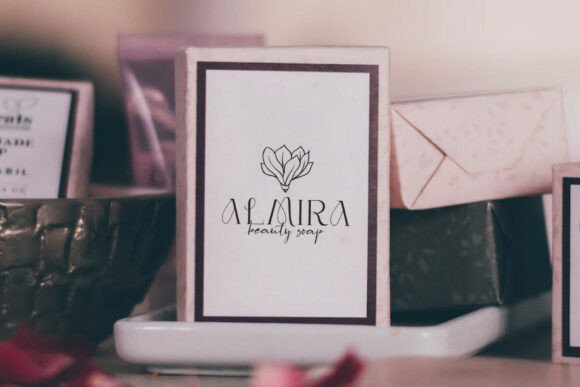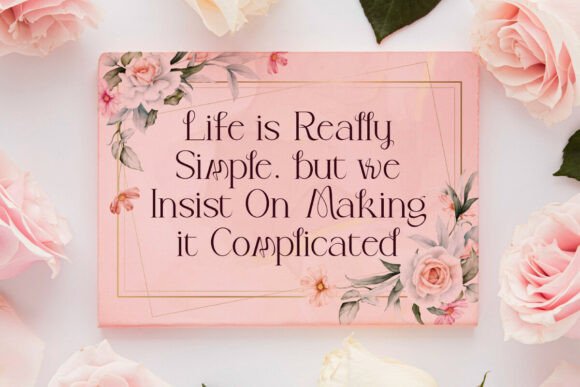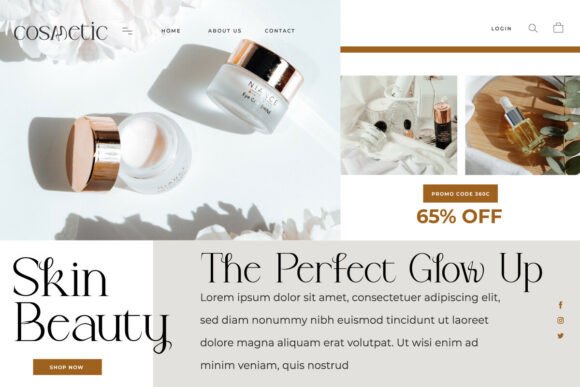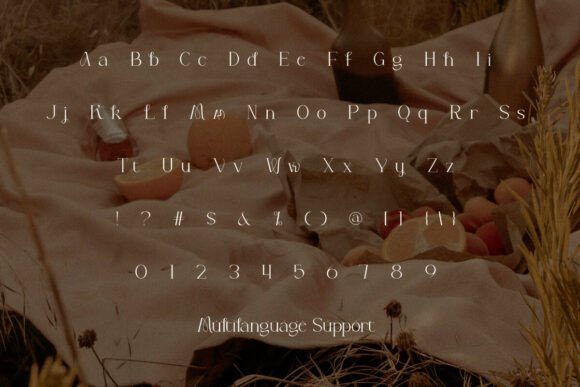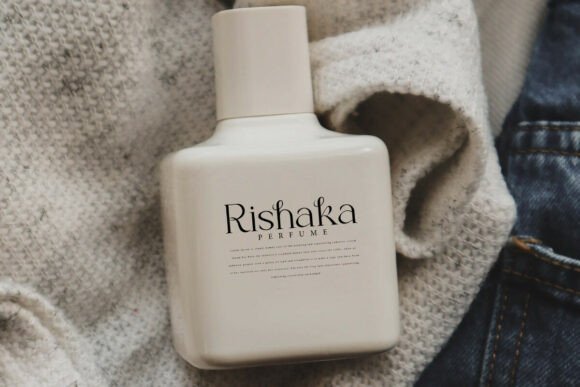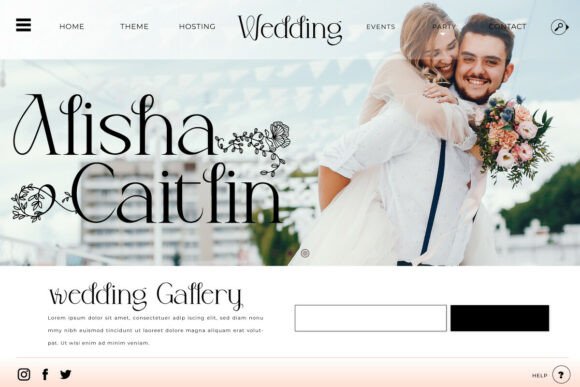
Unleash Your Creativity with Almandite Font
Have you ever stared at a blank page, trying to conjure up the perfect design to showcase your brand or product? The pressure to create something visually stunning can be overwhelming, but what if you had the perfect tool to help you stand out from the crowd? Enter the Almandite Font, a sleek and sophisticated sans-serif display font that’s about to revolutionize your creative workflow.
Designed by RaisProject, Almandite Font is a highly versatile typeface that’s perfect for a wide range of projects, from fashion and beauty to publishing and beyond. Its unique swirl element adds an extra layer of elegance and sophistication, making it an instant favorite among designers. With its effortless access to glyphs, swashes, and alternate characters, you’ll be able to create stunning designs with ease, no matter your skill level.
Almandite Font Key Features
- Unique Characteristics: The font features a unique blend of modern and vintage elements, with intricate details and ornaments, making it suitable for luxury and high-end designs.
Almandite Font Review
Overall, I’m really impressed with the Almandite font. ✨ The first thing that caught my eye was its unique blend of elegance and sophistication. The font’s subtle curves and rounded edges give it a soft, vintage feel that’s perfect for a variety of design projects.
- ✨ Beautifully crafted letterforms that are both stylish and legible.
- ✨ Supports a wide range of languages, making it a great option for multilingual projects.
- ✨ Highly customizable, with a range of weights and styles to suit different design needs.
However, I did encounter a few limitations with the Almandite font. ⚠️ The font’s italic styles can sometimes look a bit inconsistent, and the font’s support for certain Unicode characters could be improved.
- ⚠️ Inconsistent italic styles that can be a bit distracting in certain contexts.
- ⚠️ Limited support for certain Unicode characters, which may impact the font’s usability in global design projects.
Despite these limitations, I would highly recommend the Almandite font for any designer looking for a stylish and versatile typeface. With a little tweaking and customization, this font can really shine and elevate your designs to the next level.
Tips for Getting the Most Out of Almandite Font
Use Almandite font for headings and titles to add a touch of elegance and sophistication.
Pair Almandite font with a clean and modern sans-serif font for body text to create a balanced and visually appealing design.
Experiment with different font sizes and styles to create emphasis and hierarchy in your design.
Almandite font is ideal for:
Corporate branding and identity design.
Luxury product packaging and labeling.
High-end magazine and newspaper design.
Alternatives to Almandite Font
Compared to Almandite Font, Playfair Display has a more luxurious and refined feel, making it suitable for high-end projects where a sophisticated look is desired.
Akkurat
Akkurat is a clean, elegant serif font, suitable for use in body text, titles, and headings. Its refined look and classic feel make it perfect for use in various contexts such as magazines, books, and websites.
Is the Almandite font family compatible with web fonts and accessibility standards?
Yes, the Almandite font family is designed to be highly compatible with web fonts and accessibility standards. The font is optimized for use in web applications and meets the requirements of the Web Content Accessibility Guidelines (WCAG 2.1). The font also includes a range of accessibility features, including large text, bold text, and